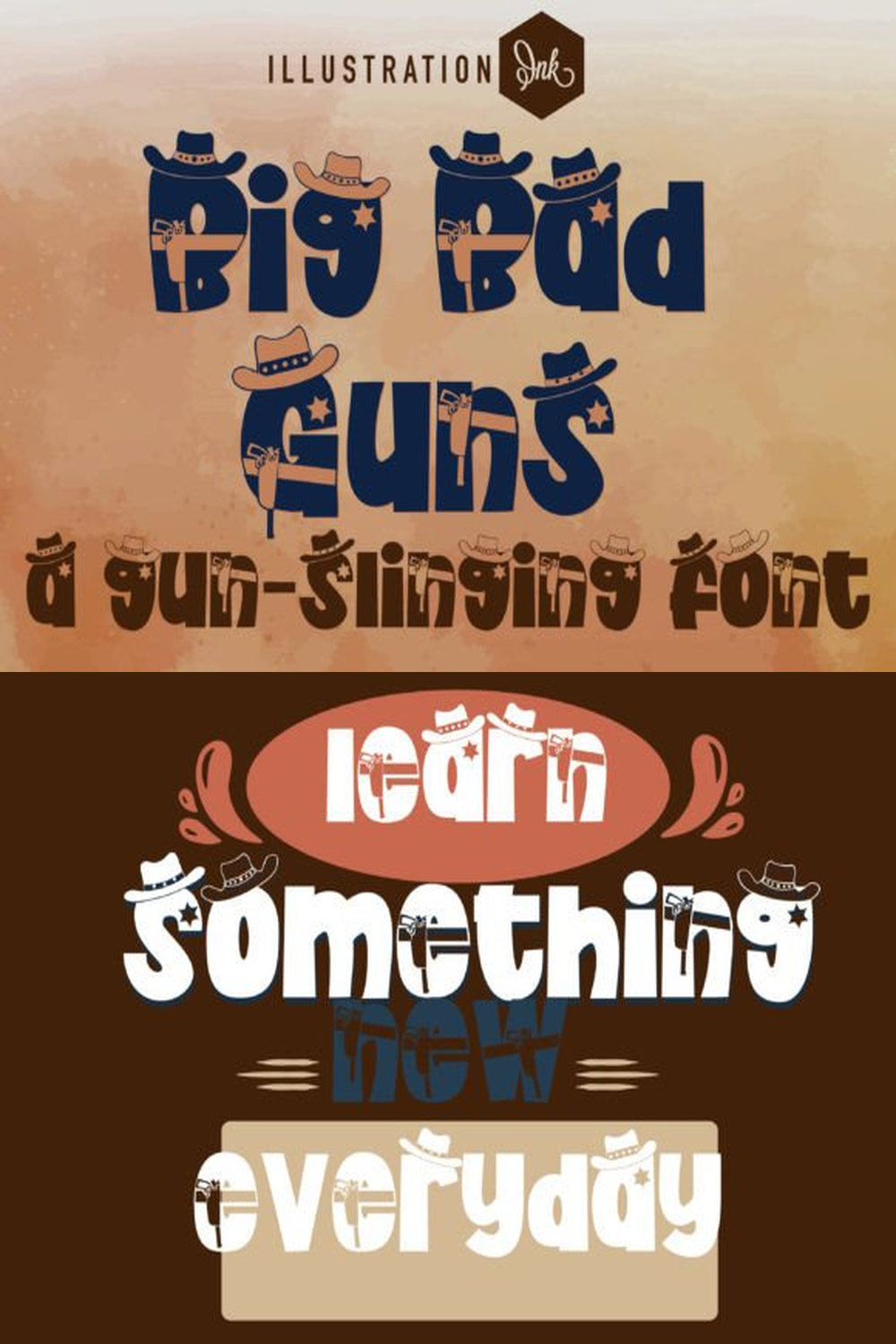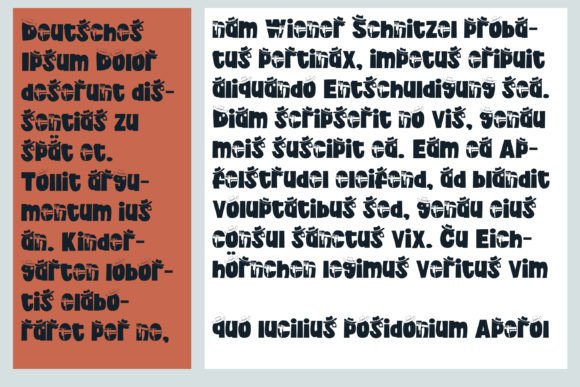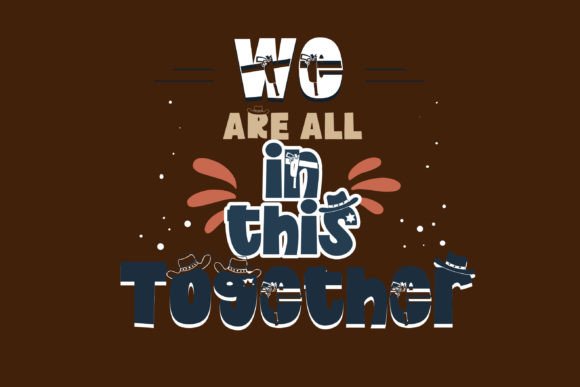
Big Bad Guns Font
About the Big Bad Guns Font
Get ready to be inspired by Big Bad Guns Font, a fresh and dynamic typeface for modern creators. Big Bad Guns is an incredibly unique display font. Masterfully designed to become a true favorite, this font has the potential to bring each of your creative ideas to the highest level!
Big Bad Guns Font Usage Examples